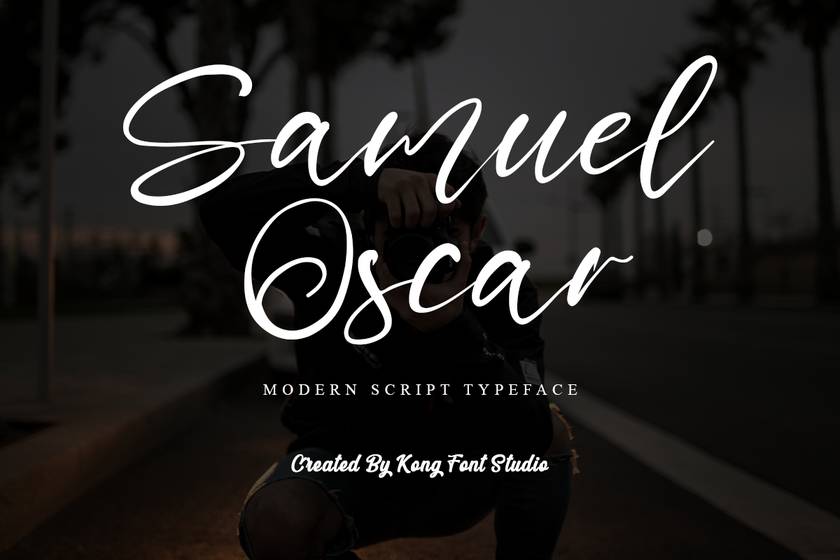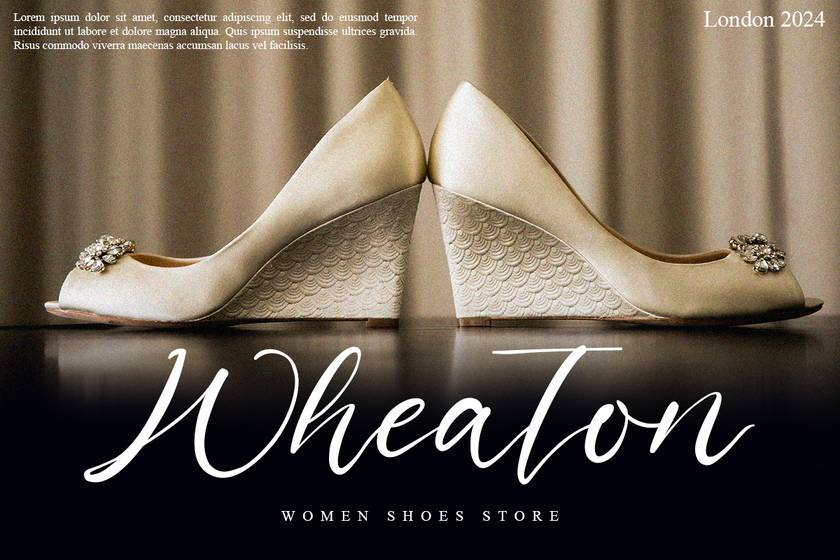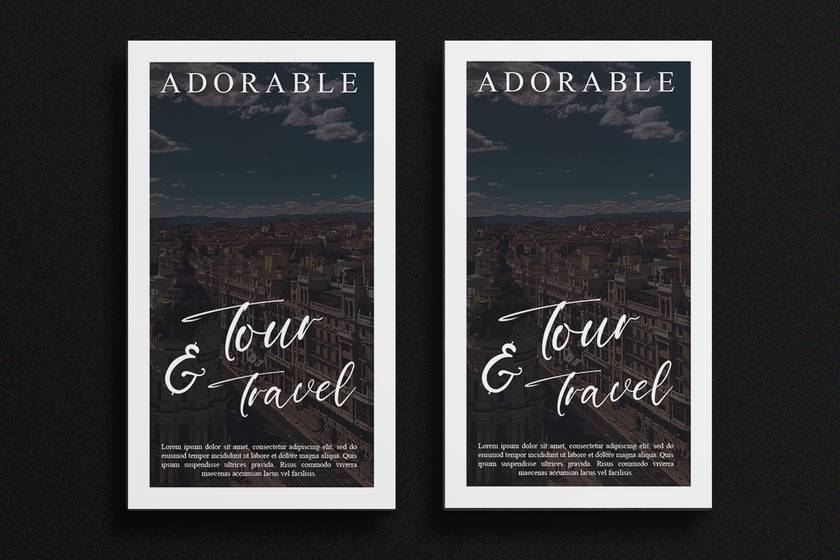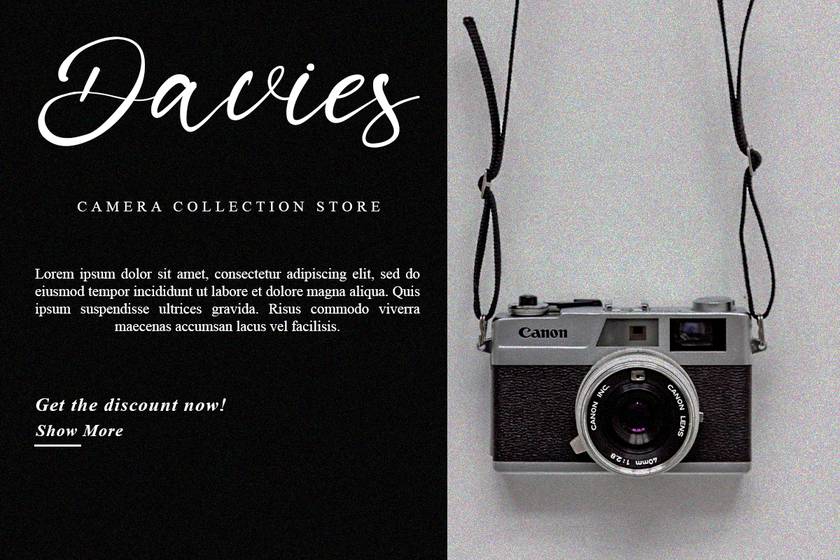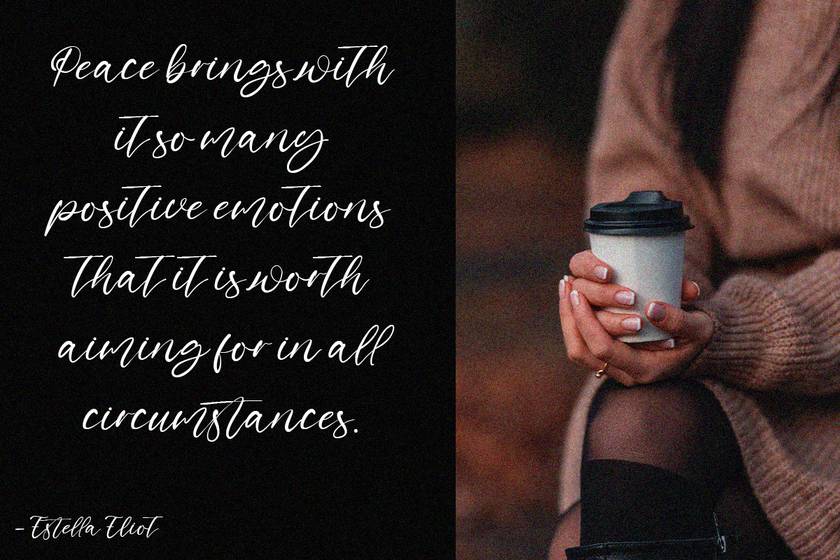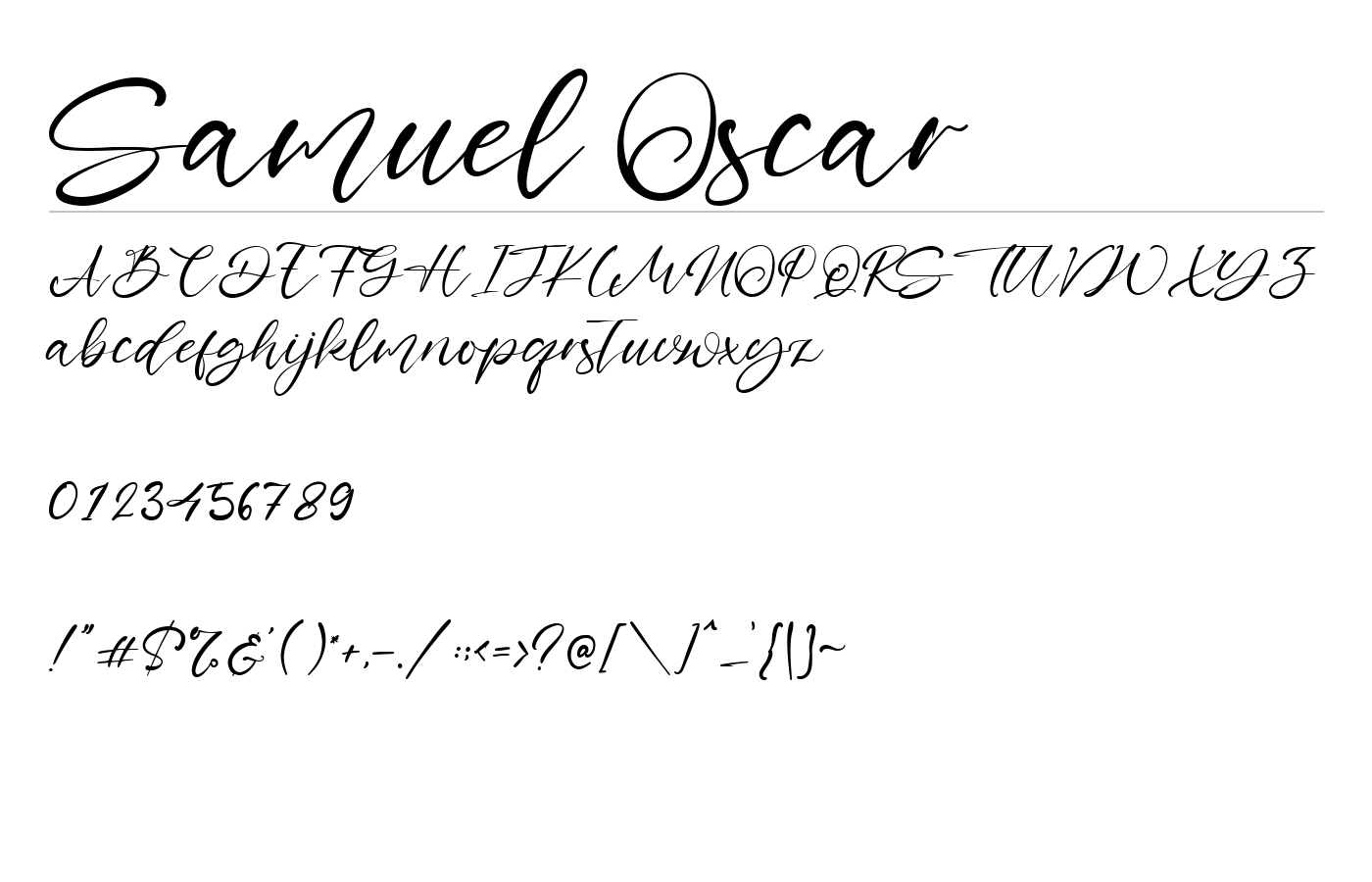
Samuel Oscar is a stylish script font that combines elegant, flowing lines with a modern, handwritten feel. Its graceful curves, moderate contrast, and delicate strokes make it ideal for sophisticated branding, invitations, and fashion-related designs that seek a personal yet refined touch. This font works beautifully in contexts where a chic, approachable, and creative vibe is desired.
Samuel Oscar Font
About Samuel Oscar Font
| Font family | Samuel Oscar Font |